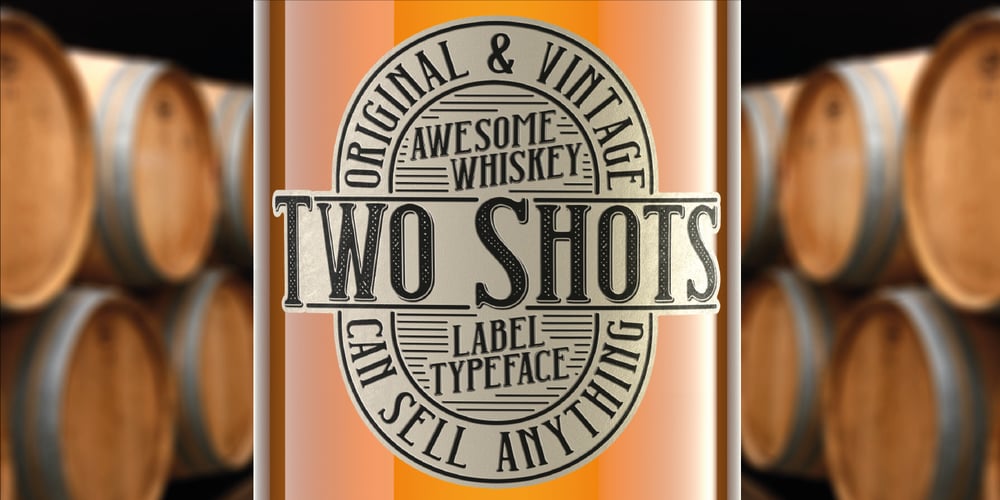
Two Shots Font Family was designed by Oleg Voznyy and published by Vozzy. Two Shots contains 6 styles and family package options. Introducing a new vintage label font named Two Shots. This strong typeface is perfect for lettering on vintage style labels, posters, t-shirts, logos, and more.